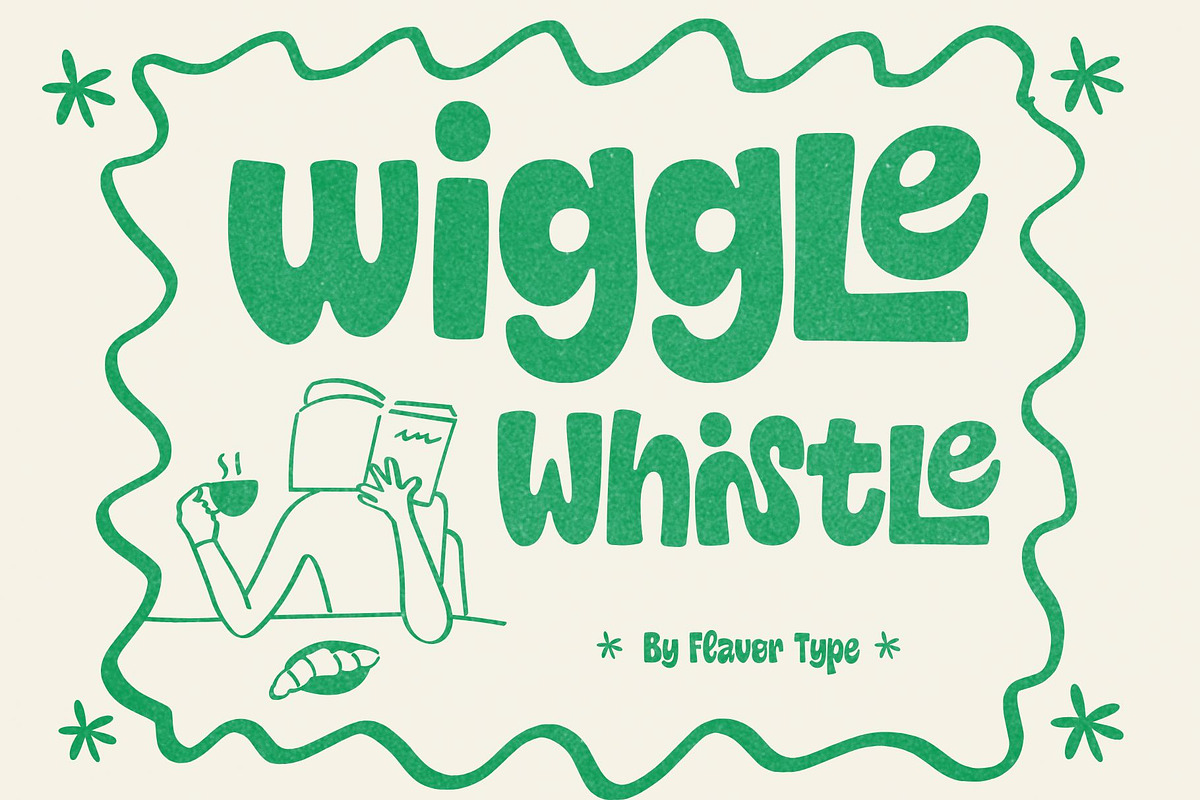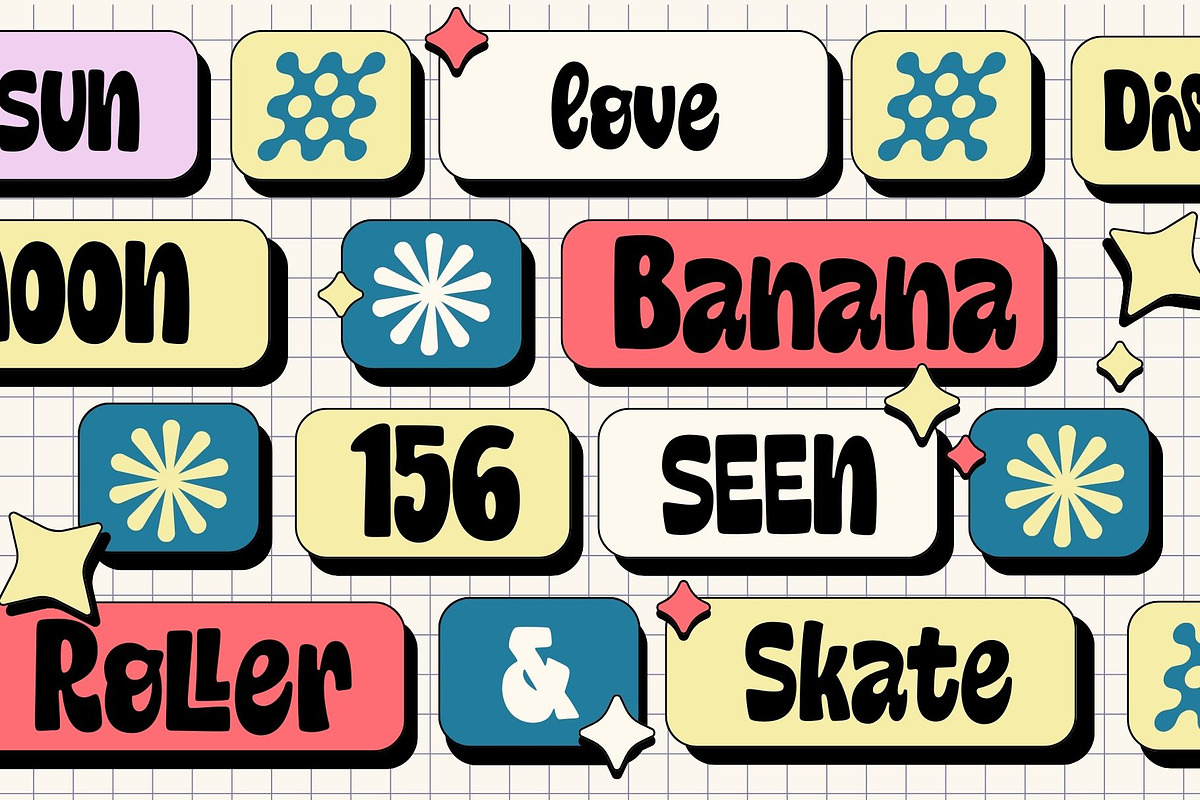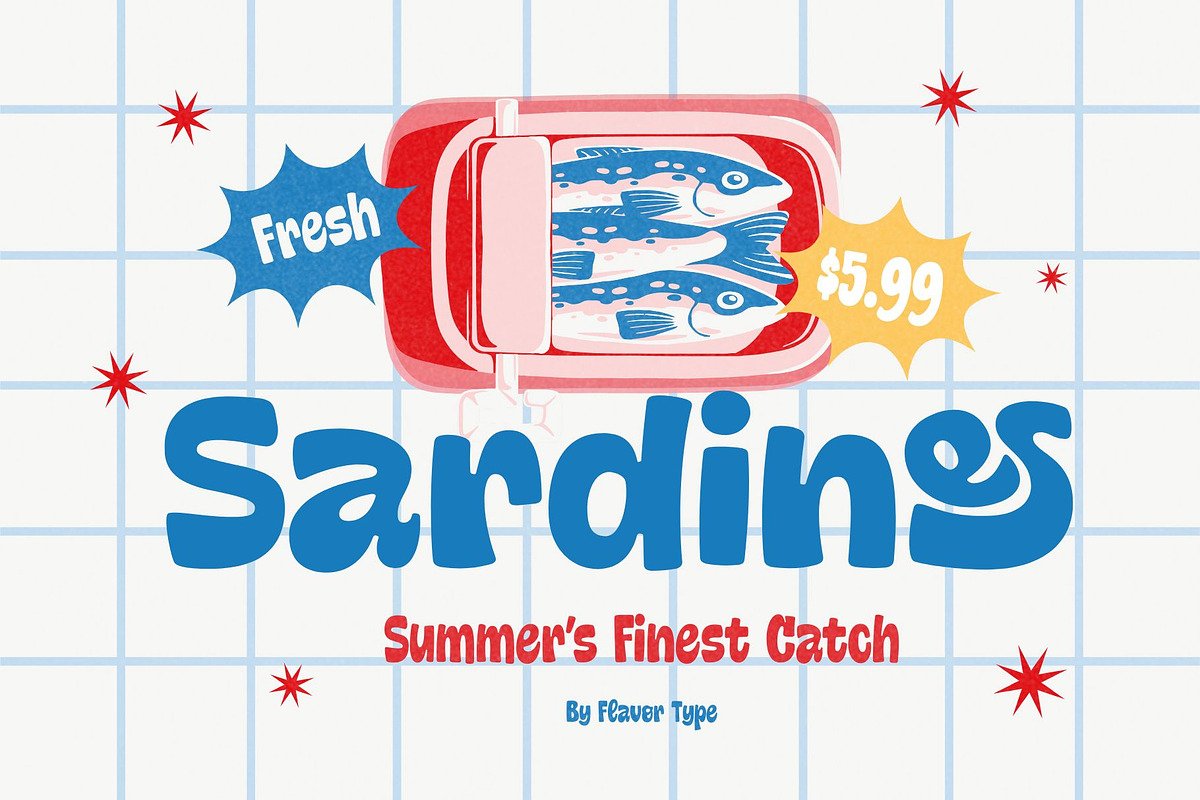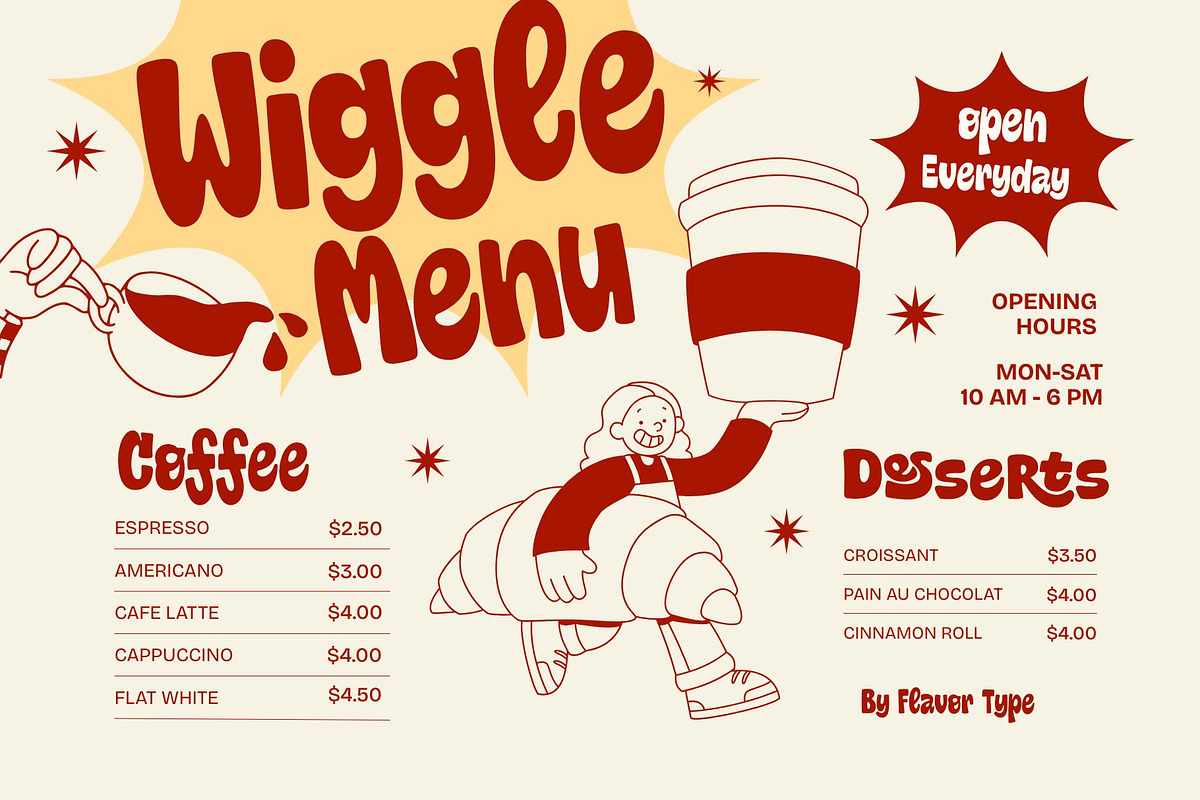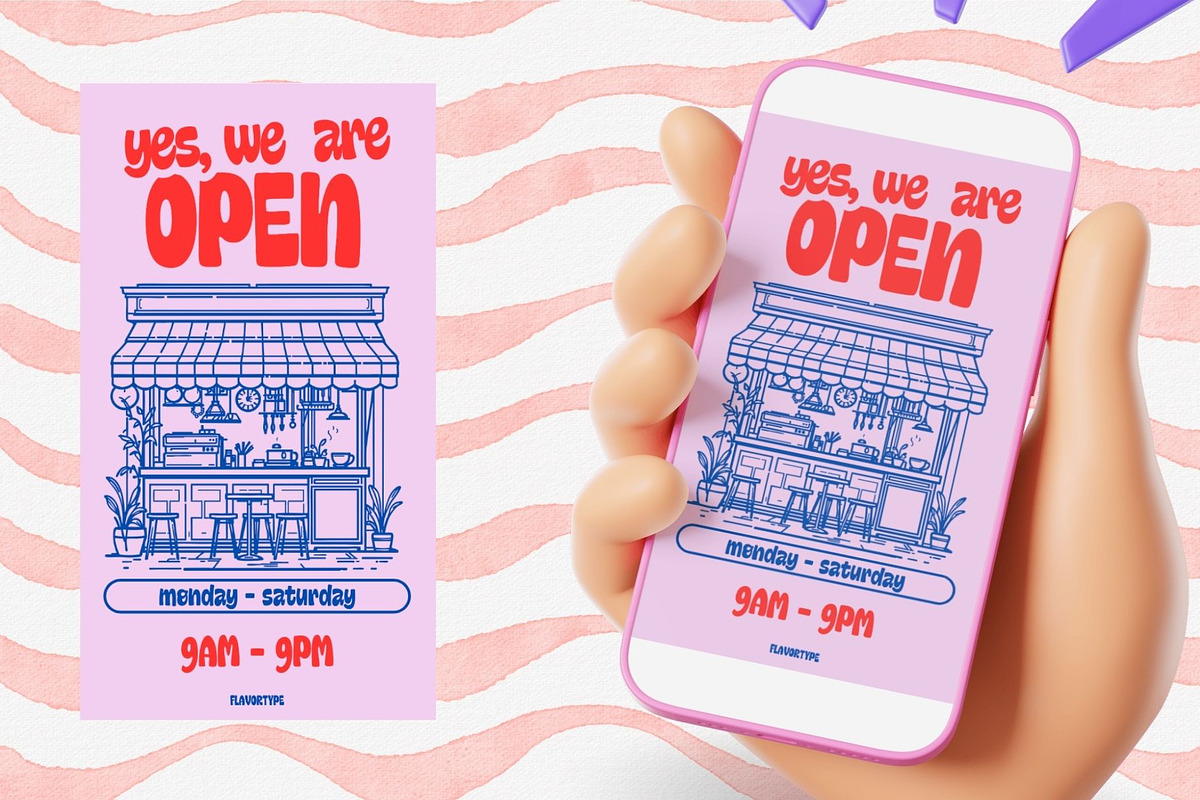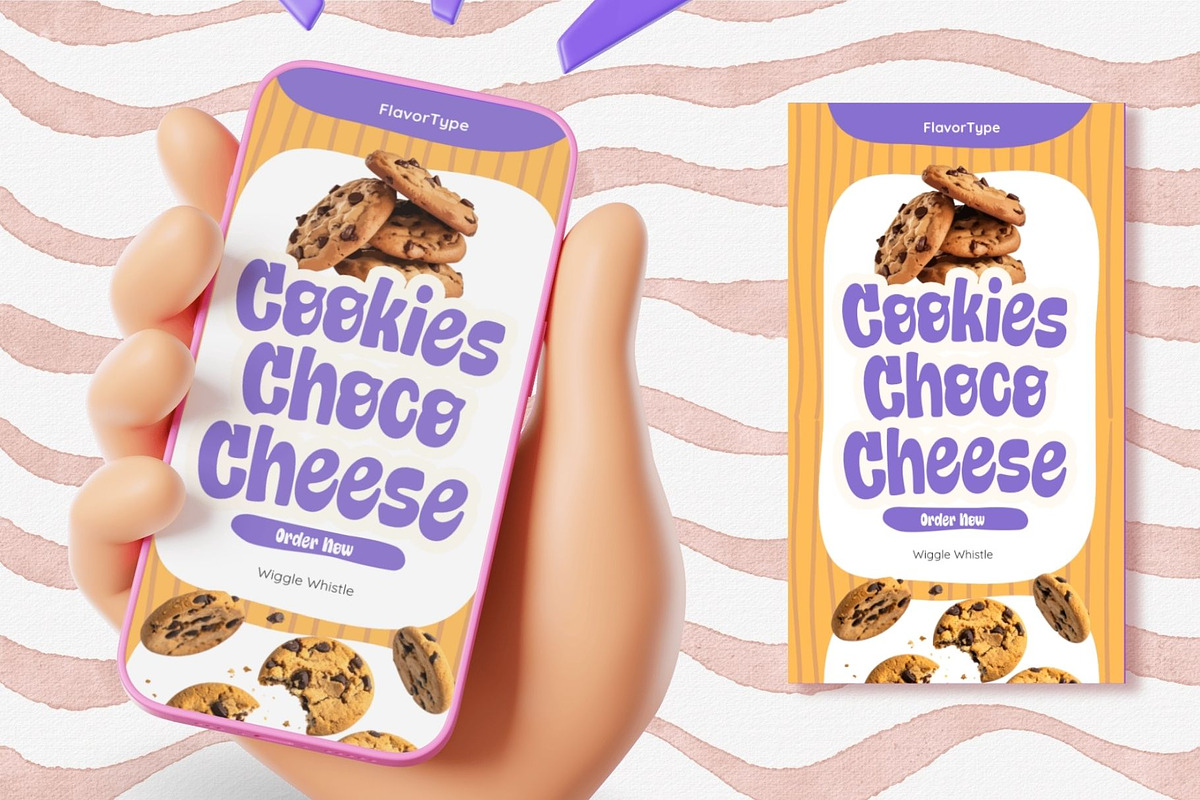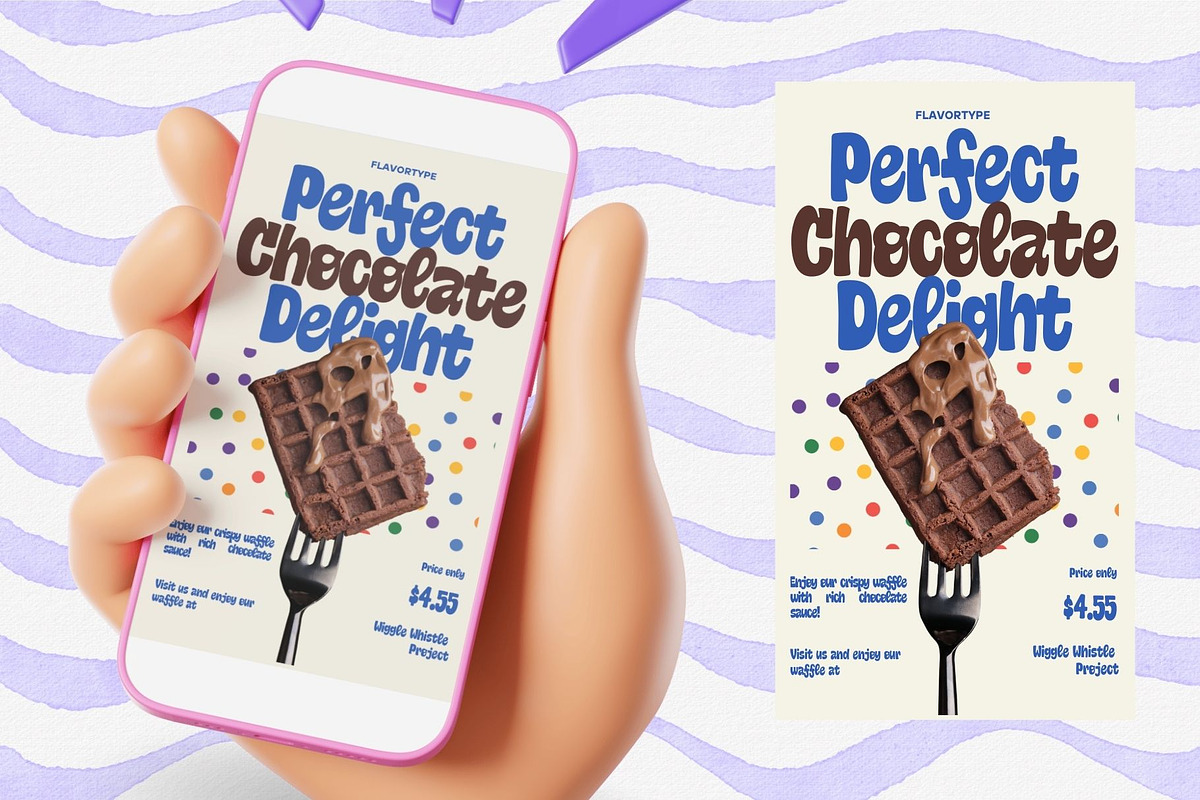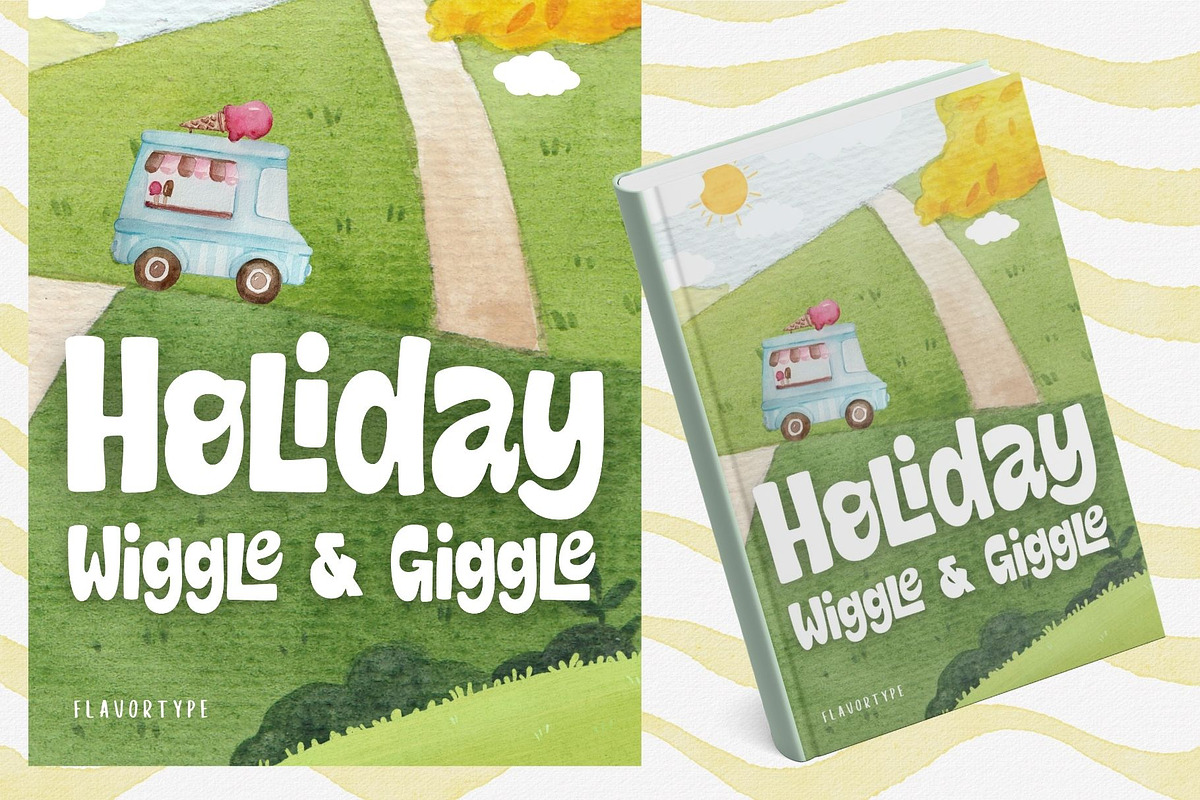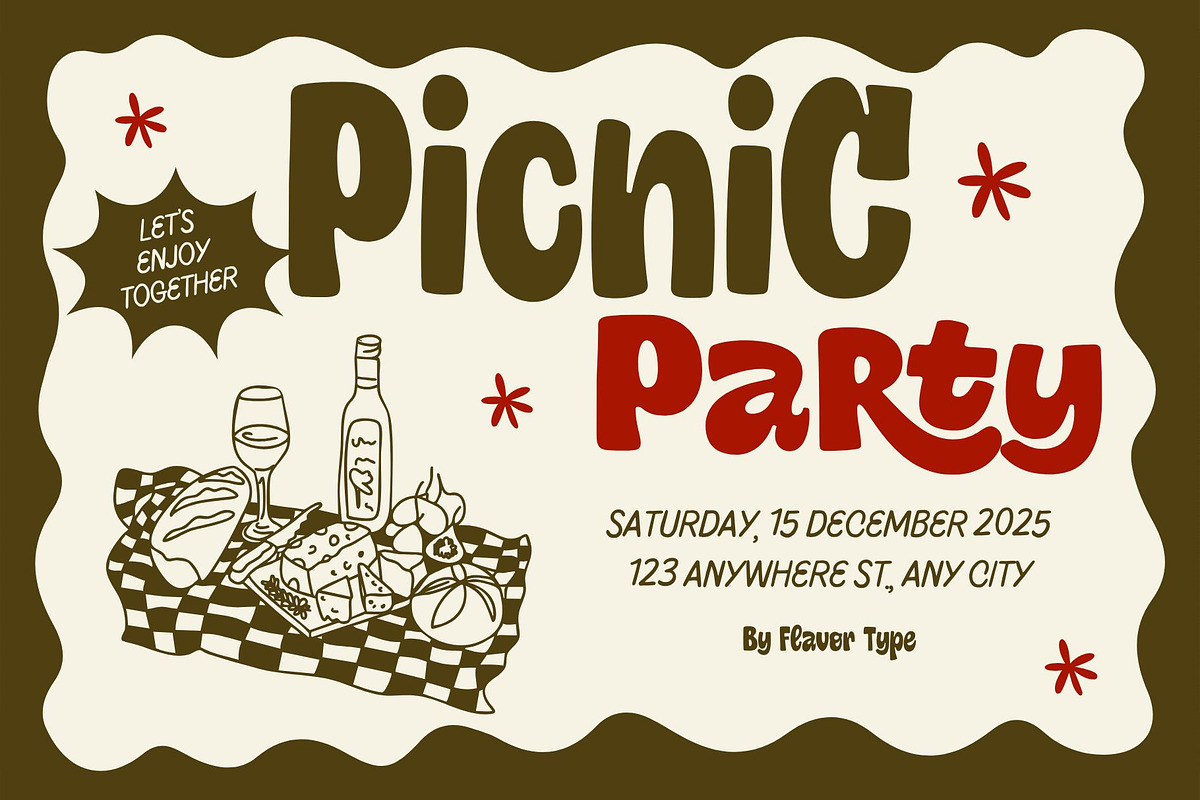
Wiggle Whistle
Wiggle Whistle is a super fun, chubby display font that looks like it jumped straight out of a cozy café menu or a cute snack package. Its bubbly, rounded shapes and wiggly rhythm give every word a friendly, hand-drawn personality that feels warm, welcoming, and full of life. The letters are bold and easy to read, making this font perfect for big titles, logos, and packaging where you want to grab attention in a soft, playful way rather than feeling too serious or stiff.
This font shines on food and beverage branding, kids’ products, dessert shops, stickers, social media posts, and event graphics. Imagine using Wiggle Whistle for ice cream menus, bakery labels, drink stands, or pop-up market signage—it instantly makes everything look more inviting and delightfully cute. Its wavy forms add movement to your layout, so even simple phrases feel energetic and fun, like they’re bouncing across the page.
Wiggle Whistle works especially well in pastel or bright color palettes, soft illustrations, and playful layouts. Pair it with simple sans-serif body text for balance, or let it stand alone as a hero display for posters, headers, and packaging fronts. Whether you’re designing for children, lifestyle brands, or fun seasonal campaigns, this font helps you tell a story that feels friendly, cheerful, and approachable. Just type, experiment, and let your designs wiggle, giggle, and shine.